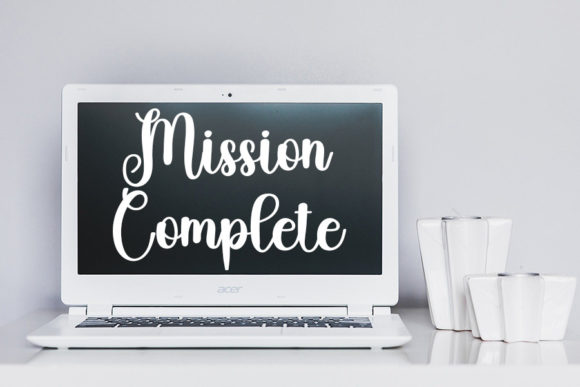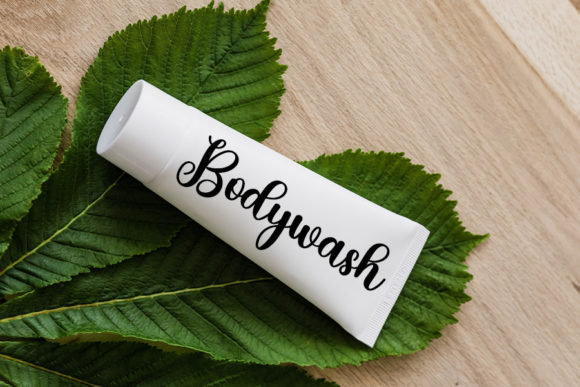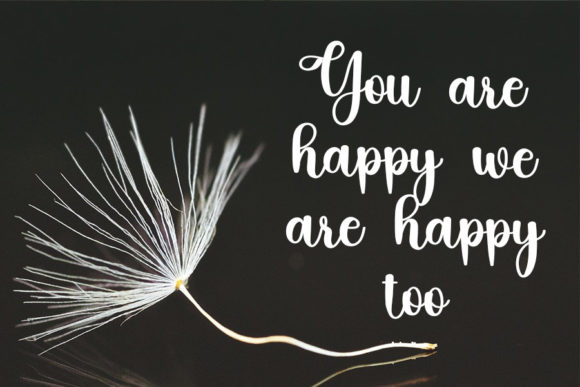
Introduction to Kissing Font
Kissing is a simple and casual handwritten font, carefully designed to become a true favorite.
Key Features of Kissing Font
Why Choose Kissing Font?
Kissing Font offers exceptional quality and versatility, making it a valuable addition to your design toolkit. Whether you’re creating for personal projects or commercial use, Kissing Font delivers professional results.